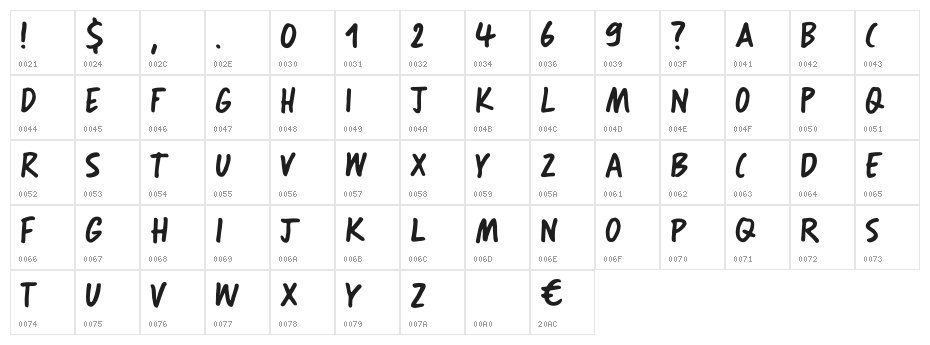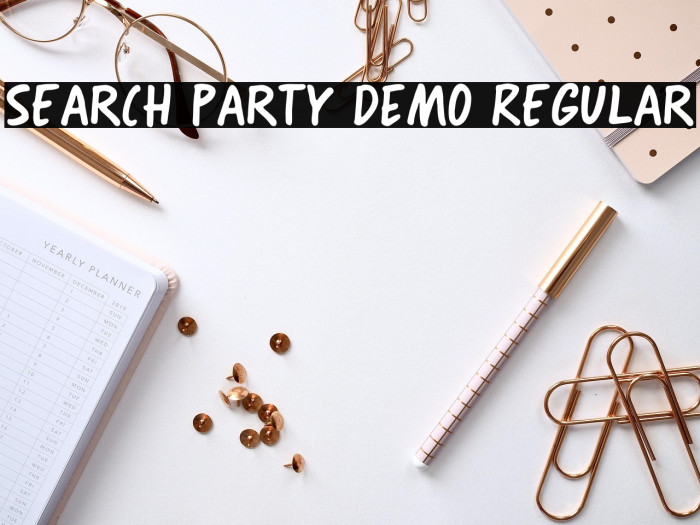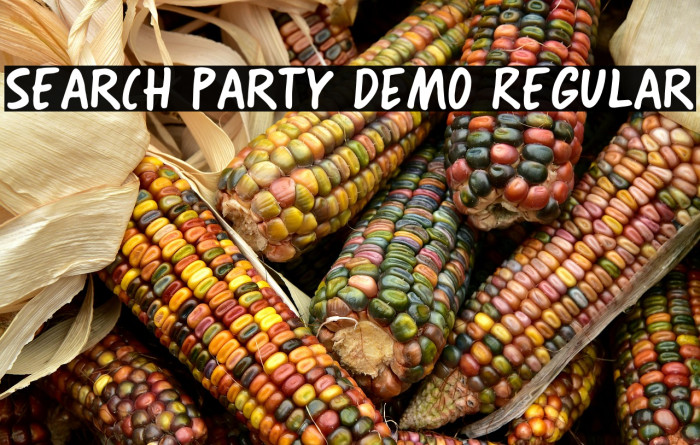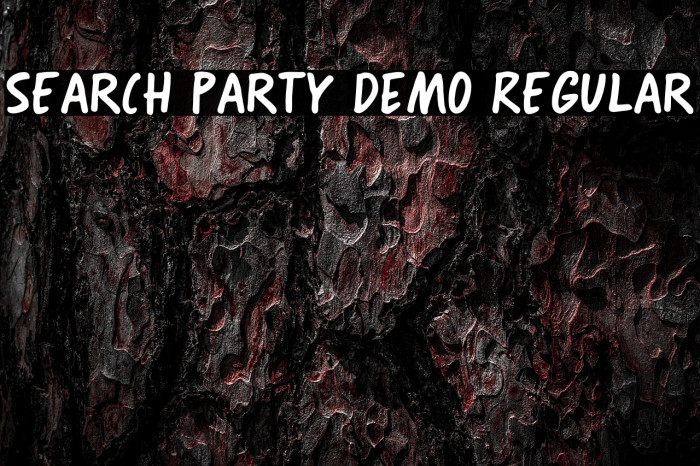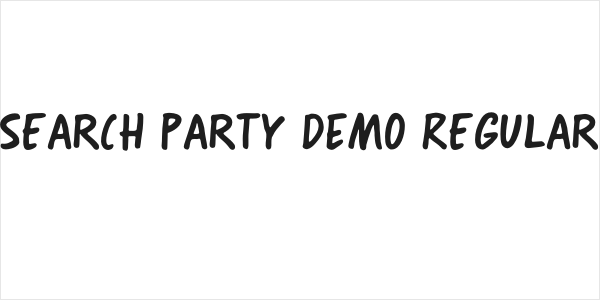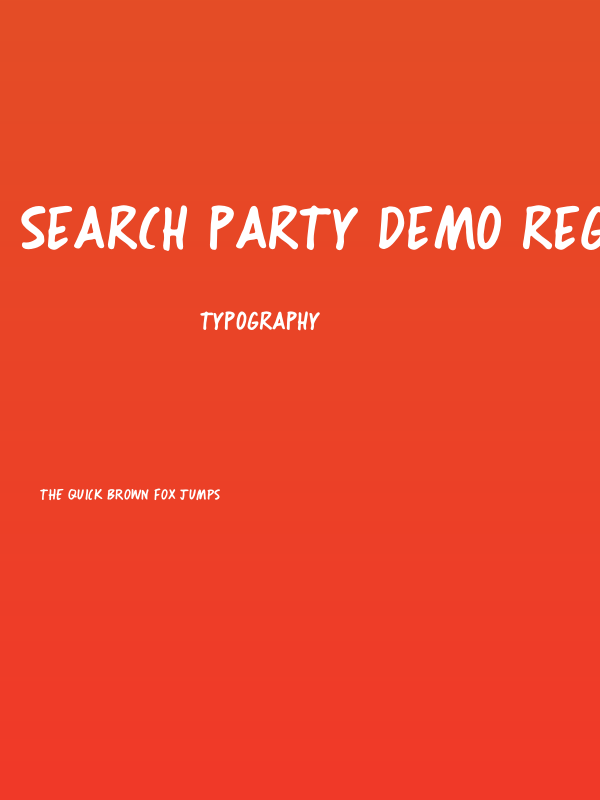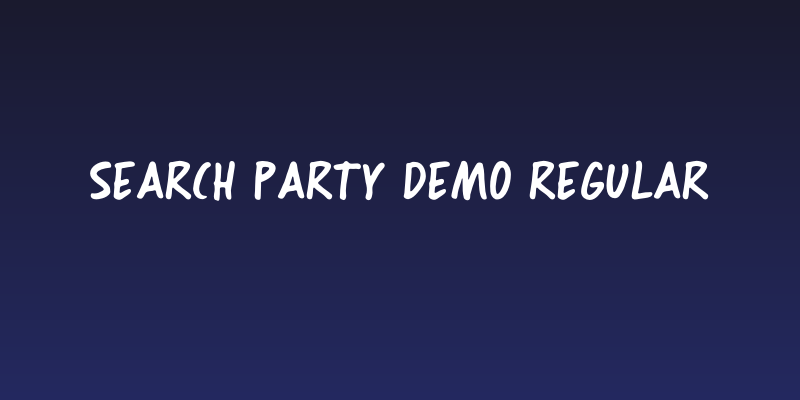
Search Party DEMO Regular Font
Search Party DEMO Regular Description
A playful, handwritten font with a casual and informal style, featuring uneven strokes and a dynamic appearance.
| Proposed Projects | Greeting cards, invitations, playful branding. |